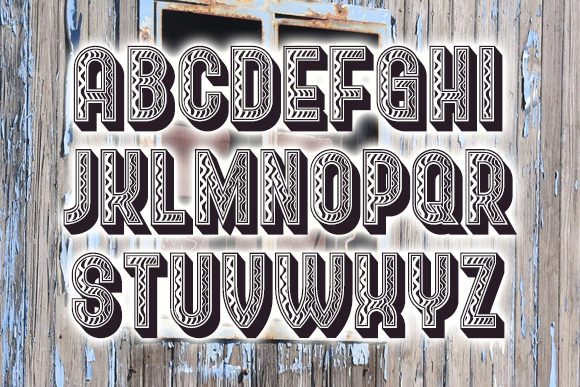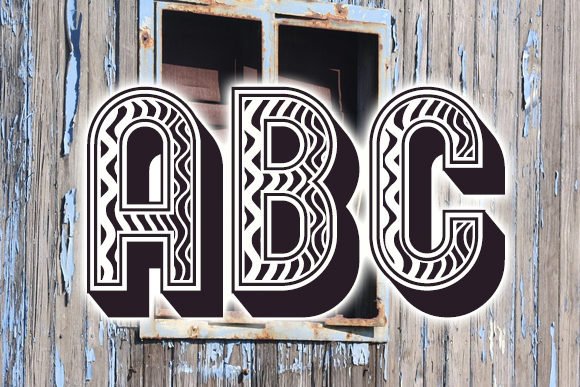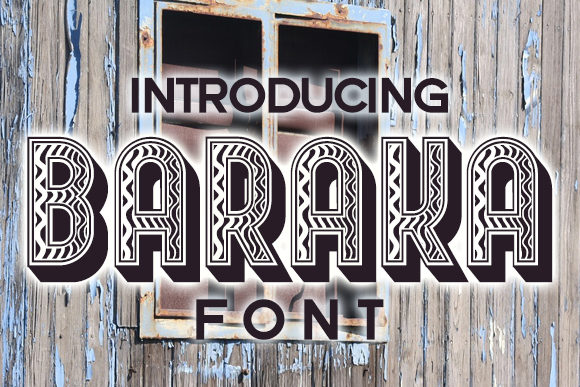
Introducing Baraka Font: The Ultimate Bold 3D Decorative Font for Stunning Designs
Are you a designer or crafter looking for a font that can add a touch of boldness and grandeur to your creations? Look no further than Baraka Font! This thick lettered, bold 3D decorative font is perfect for creating stunning banners, posters, and prints that demand attention. In this article, we’ll dive into the features and benefits of Baraka Font, and explore how it can elevate your design game.
What is Baraka Font?
Baraka Font is a unique and eye-catching font that boasts a thick, bold, and 3D decorative style. Its distinctive lettering makes it perfect for creating designs that require a strong visual impact. Whether you’re working on a banner, poster, or print, Baraka Font is sure to make your text stand out from the crowd.
Key Features of Baraka Font
- Thick and Bold Lettering: Baraka Font features thick and bold lettering that is sure to grab attention.
- 3D Decorative Style: The font’s 3D decorative style adds depth and dimension to your designs.
- High Versatility: Baraka Font can be used on a wide range of designs, from banners and posters to prints and more.
Benefits of Using Baraka Font
So, why should you choose Baraka Font for your next design project? Here are just a few benefits of using this amazing font:
- Adds Visual Impact: Baraka Font’s bold and 3D decorative style adds a level of visual impact that is hard to achieve with standard fonts.
- Increases Readability: The font’s thick lettering makes it easy to read, even from a distance.
- Enhances Creativity: Baraka Font’s unique style can inspire creativity and help you think outside the box when it comes to your designs.
- Perfect for Branding: The font’s bold and eye-catching style makes it perfect for creating logos, business cards, and other branding materials.
Tips and Tricks for Using Baraka Font
Here are a few tips and tricks to help you get the most out of Baraka Font:
- Use it Sparingly: While Baraka Font is bold and eye-catching, it can be overwhelming if used too much. Use it sparingly to add emphasis to key words or phrases.
- Experiment with Colors: Baraka Font looks great in a variety of colors, so don’t be afraid to experiment and find the perfect hue for your design.
- Combine with Other Fonts: Baraka Font can be paired with other fonts to create a unique and visually appealing design.
In conclusion, Baraka Font is a powerful and versatile font that can add a touch of boldness and grandeur to your designs. Its thick lettered, bold 3D decorative style makes it perfect for creating stunning banners, posters, and prints. Whether you’re a designer or crafter, Baraka Font is a must-have font that can help you take your designs to the next level.